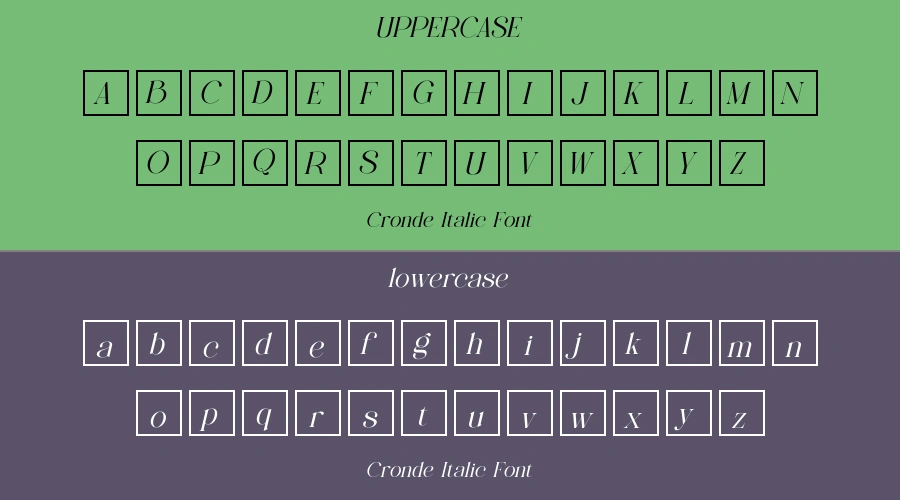
About Cronde Italic Font
Cronde Italic Font stands out for its distinctive combination of harmonious shapes and versatility. Ideal for newspaper text, it provides the clarity and system compatibility that professional projects demand. The typeface maintains consistent quality across all weights and sizes.
Key features include refined organic forms and practical period ligatures, enhancing typographic expression. In packaging applications, Cronde Italic Font demonstrates exceptional language switching. The x-height proportion and contemporary relevance contribute to its distinctive character and professional appeal.